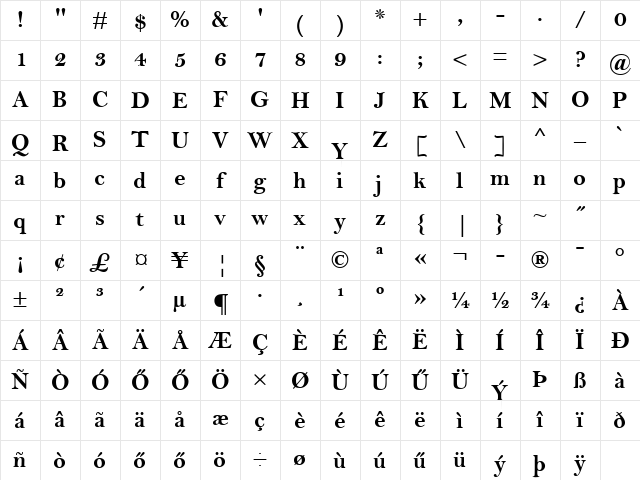
H_Bell MT Bold
H_Bell MT Family
Design Context for H_Bell MT
H_Bell MT is a composed and adaptable typeface that performs quietly and consistently across a wide range of design contexts. Its bold stroke weight gives it real presence on the page.